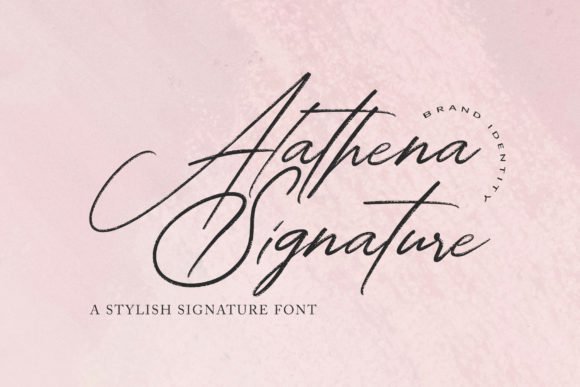
Bring Your DIY Projects to Life with the Alathena Signature Font
You know that moment when a spark of creativity hits you, and you just can’t wait to bring your idea to life? For designers and crafty enthusiasts, it’s that instant when you envision the perfect handwritten font to make your DIY project truly special. That’s exactly what the Alathena Signature Font offers – a stunning pairing of a brush pen and pencil that results in an endearing and authentic look.
This gorgeous and unique handwritten font is not just a pretty face; it’s a valuable tool for designers looking to add a personal touch to their projects. Whether you’re creating custom invitations, journal pages, or artwork, the Alathena Signature Font is sure to bring your vision to life. Its versatility and charm make it a must-have for anyone looking to elevate their DIY game.
Alathena Signature Font Key Features
- Font Family: Alathena Signature Font is a unique, elegant script font designed for formal and professional use.
- Unique Characteristics: The font features intricate flourishes, swashes, and ornaments, making it perfect for adding a touch of sophistication and elegance to designs.
Designer Review: Alathena Signature Font
Overall, I was pretty impressed with the Alathena Signature Font. The designer has clearly put thought into the design and the result is a beautiful, elegant font. ✨ I particularly love the way the font flows and the subtle variations in letterform that give it a sense of depth and character.
One of the standout features of the Alathena Signature Font is its versatility. It works well for a wide range of applications, from headlines and titles to body text and even logos. The font’s elegant, refined feel makes it perfect for luxury brands, fashion labels, and high-end products. ✨
- ⚠️ The font may be too ornate for some uses, such as body text in a long-form article or website.
- ⚠️ The font’s elegant feel may not be suitable for edgy or avant-garde brands.
- ⚠️ The font is not highly customizable, which may limit its use in certain design contexts.
Overall, I would highly recommend the Alathena Signature Font for any designer looking for a beautiful, elegant font that’s perfect for luxury brands or high-end products. With its versatility and refined feel, it’s a great addition to any designer’s toolkit.
Getting the Most Out of Alathena Signature Font
To get the most out of the Alathena Signature Font, use it for:
1. Branding and logos.
2. Creative typography projects.
3. Adding a touch of elegance to your designs.
The Alathena Signature Font is perfect for:
1. Creating beautiful business cards.
2. Designing wedding invitations.
3. Adding a touch of sophistication to your website.
Great Vibes is a modern calligraphy font perfect for creating elegant and sophisticated designs. It features flowing connections and subtle flair, making it ideal for invitations, weddings, and other special occasions. Great Vibes is a great alternative to Alathena Signature Font for designers who want a more refined and polished look.
Comparison: Great Vibes has a more delicate and refined feel compared to Alathena Signature Font, which has a bolder and more dramatic look. Great Vibes is also more versatile and can be used for a wider range of designs.
Litera is a beautiful script font that combines elegance and sophistication with a touch of modernity. It features a flowing connection between letters and a subtle flair, making it perfect for creating eye-catching designs. Litera is a great alternative to Alathena Signature Font for designers who want a more refined and elegant look.